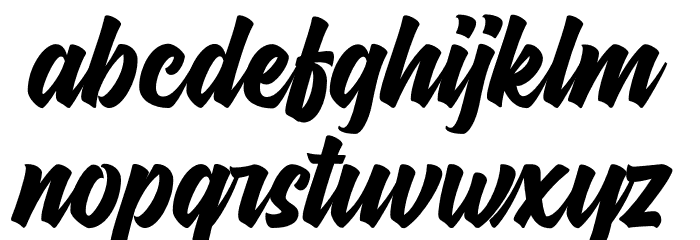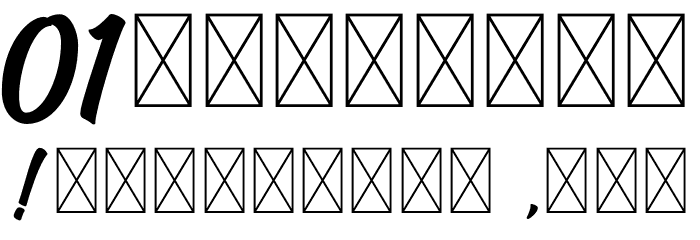
Hayhills Demo Font
This font features a bold, dynamic script style with a strong presence. The characters are designed with a slight slant, giving them a sense of movement and fluidity. The strokes are thick and consistent, providing a robust and confident appearance. The uppercase letters are tall and commanding, while the lowercase letters maintain a cohesive flow. The overall design is modern and stylish, making it suitable for projects that require a touch of elegance and flair. The font's boldness ensures it stands out, making it ideal for attention-grabbing headlines or branding materials.
A bold, dynamic script font with a modern and stylish flair.
- Font: Hayhills Demo
- Proposed Projects: Ideal for branding, logos, headlines, and promotional materials that require a bold and elegant touch.
- Category: Script